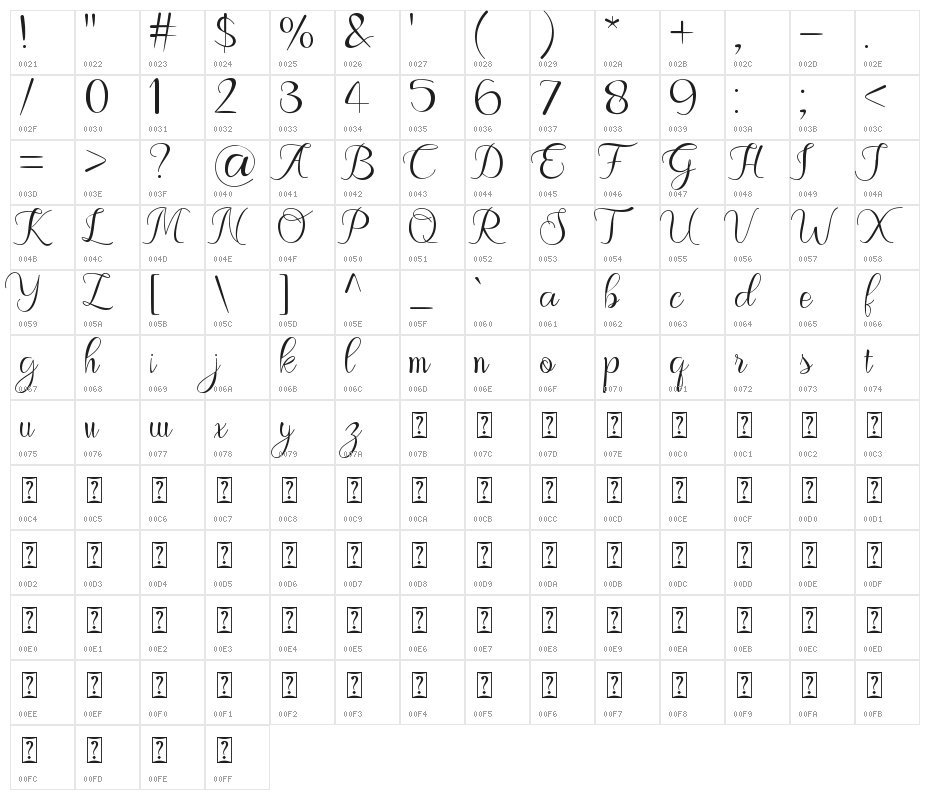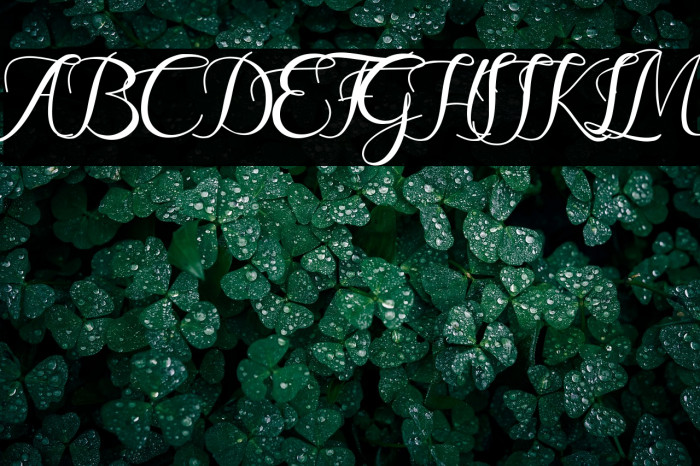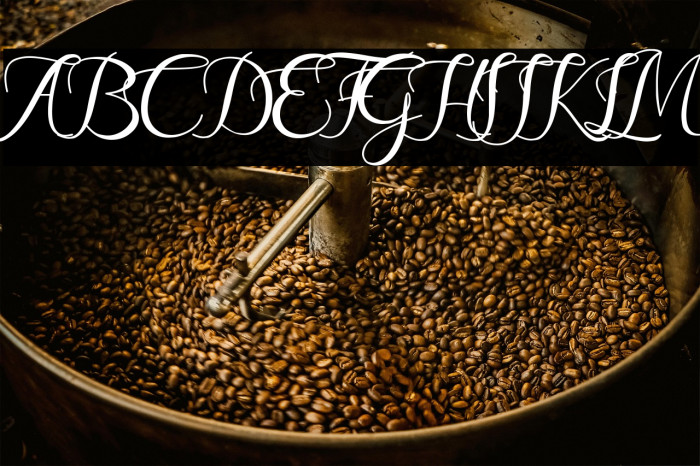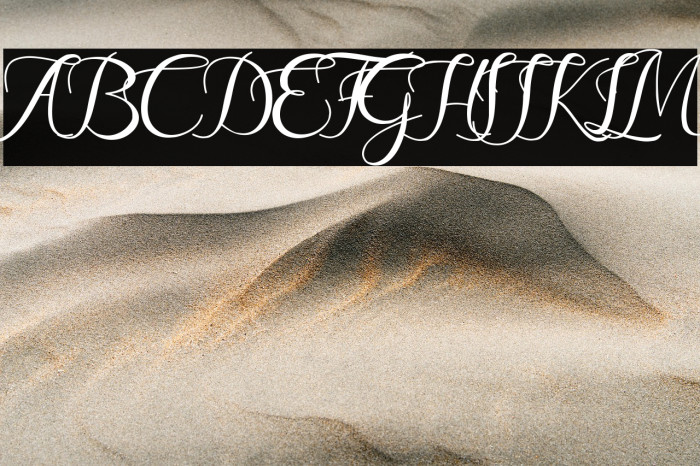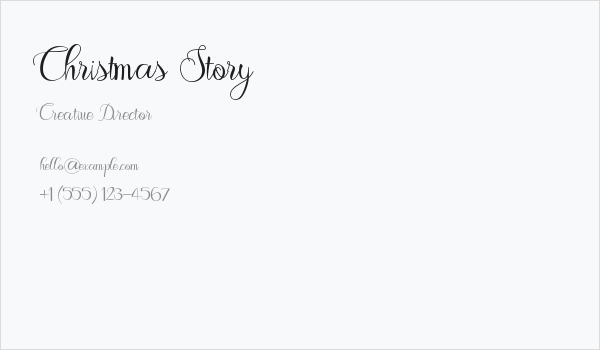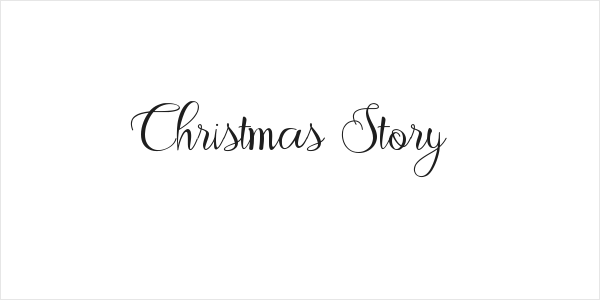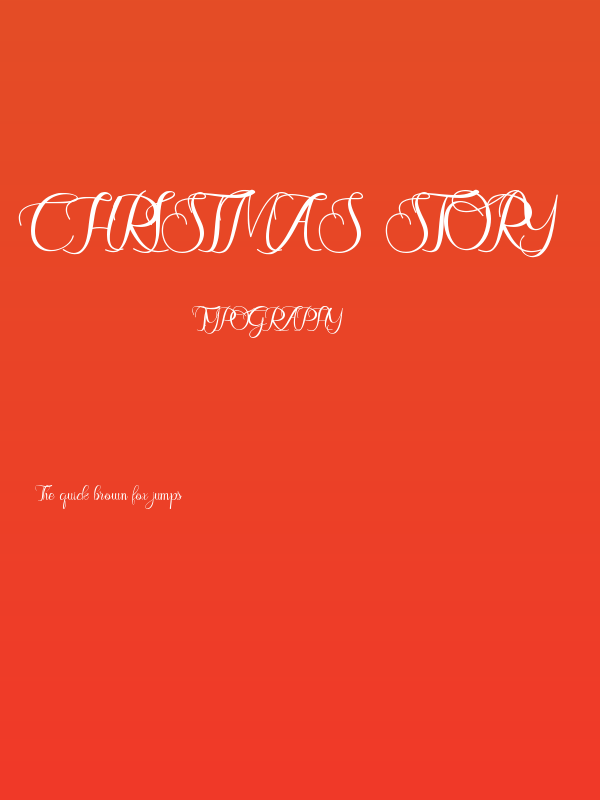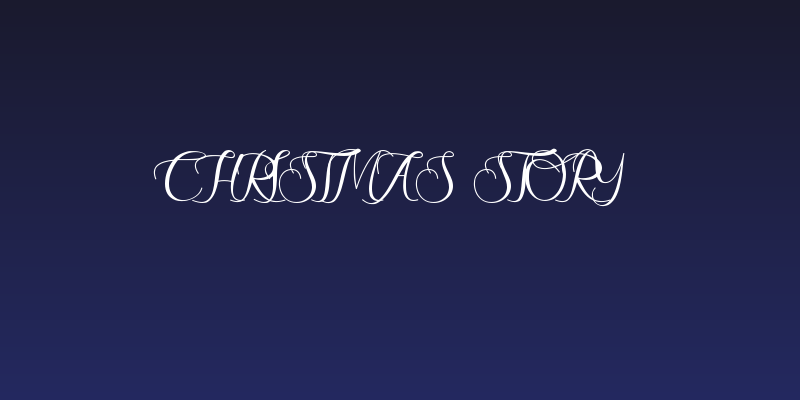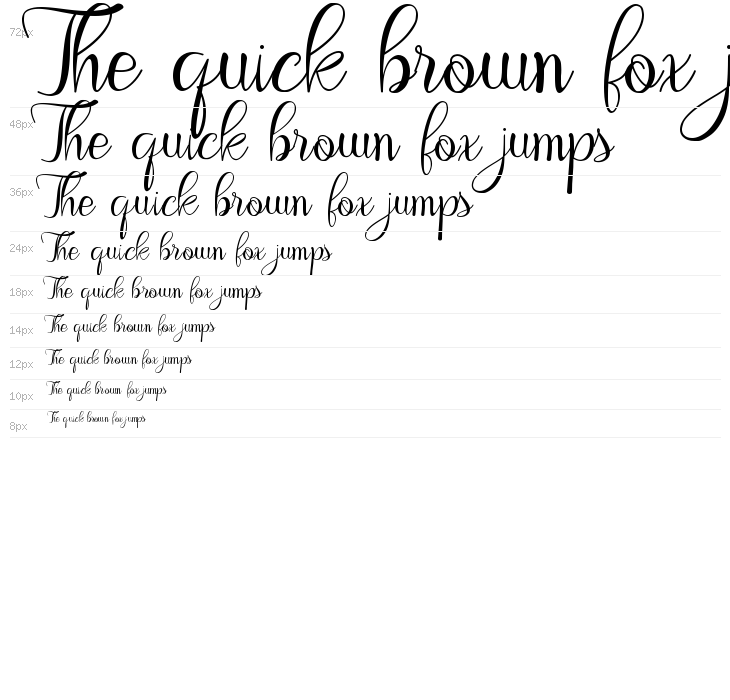
Christmas Story Font
Christmas Story Description
This elegant script font features flowing, interconnected letters with a calligraphic style. The uppercase characters are adorned with intricate swashes and loops, giving them a sophisticated and decorative appearance. The lowercase letters maintain a smooth, cursive flow, enhancing readability while retaining an artistic flair. Numbers and special characters are designed with the same attention to detail, ensuring a cohesive look across all glyphs. The font's overall design is reminiscent of traditional handwriting, making it ideal for projects that require a personal, elegant touch.
| Proposed Projects | Ideal for wedding invitations, greeting cards, elegant branding, and decorative signage. |